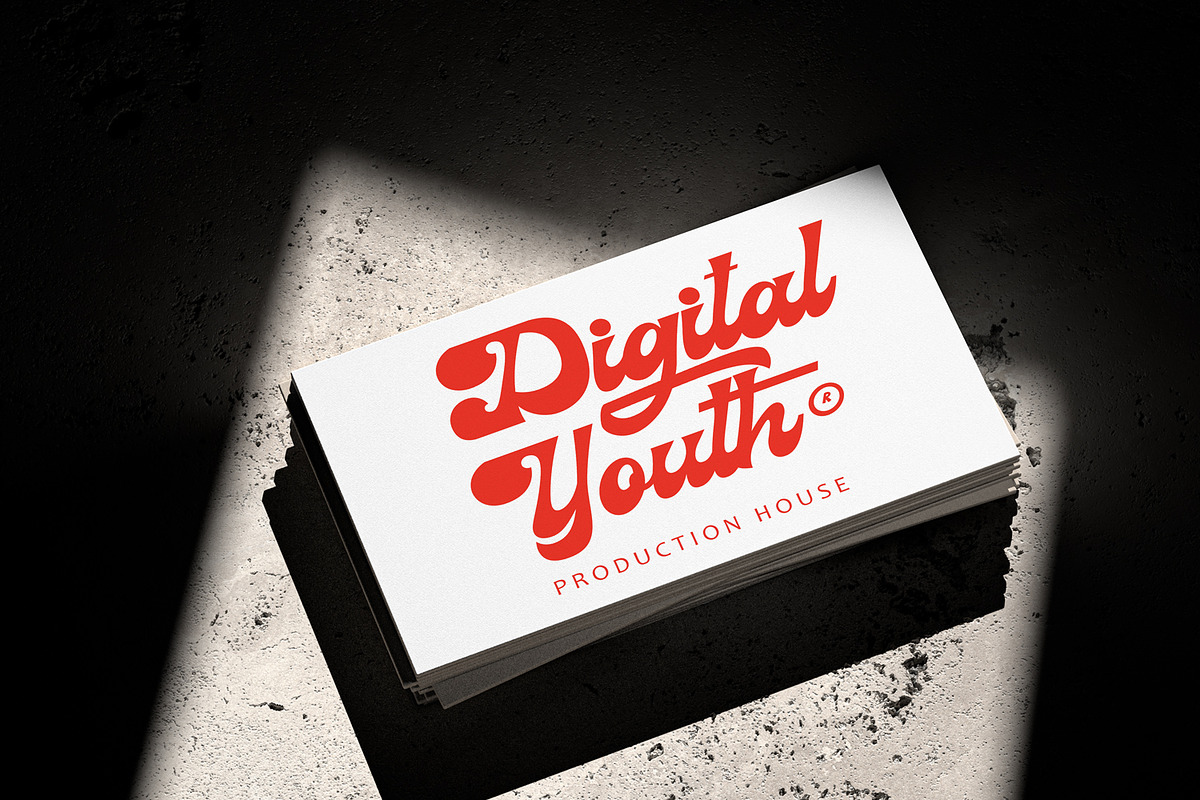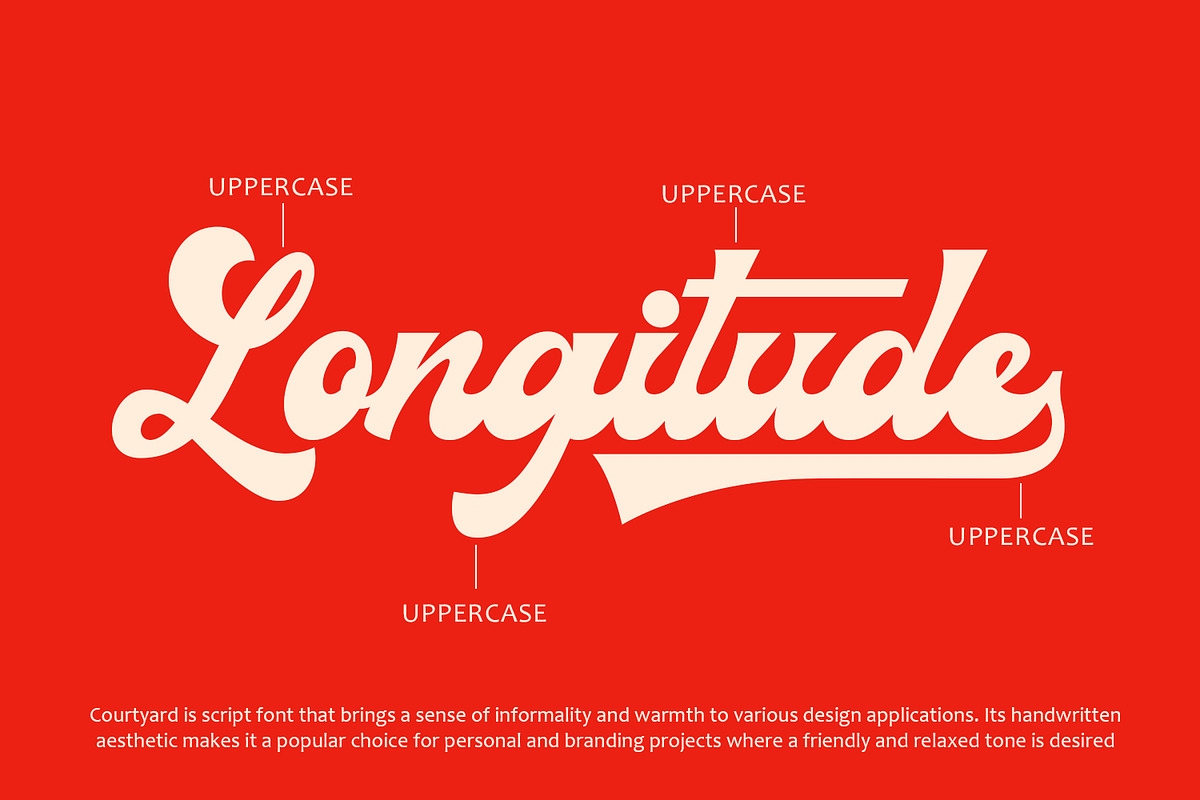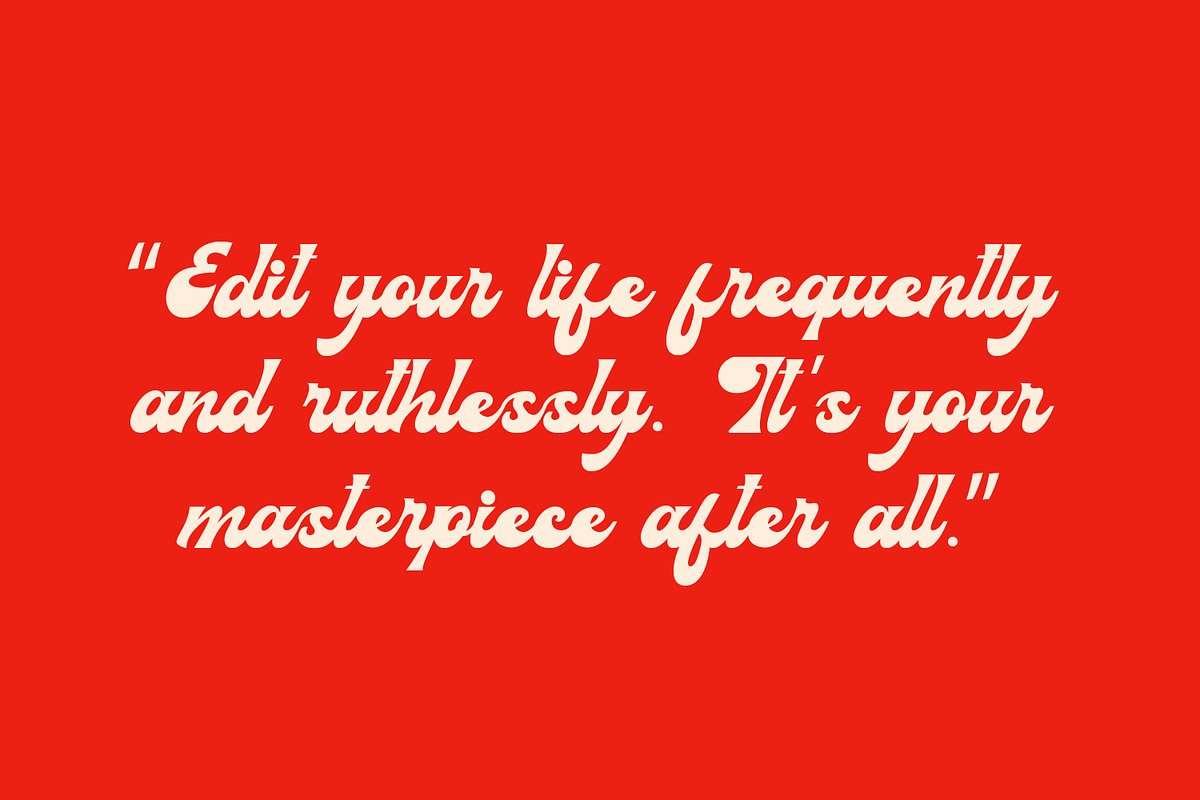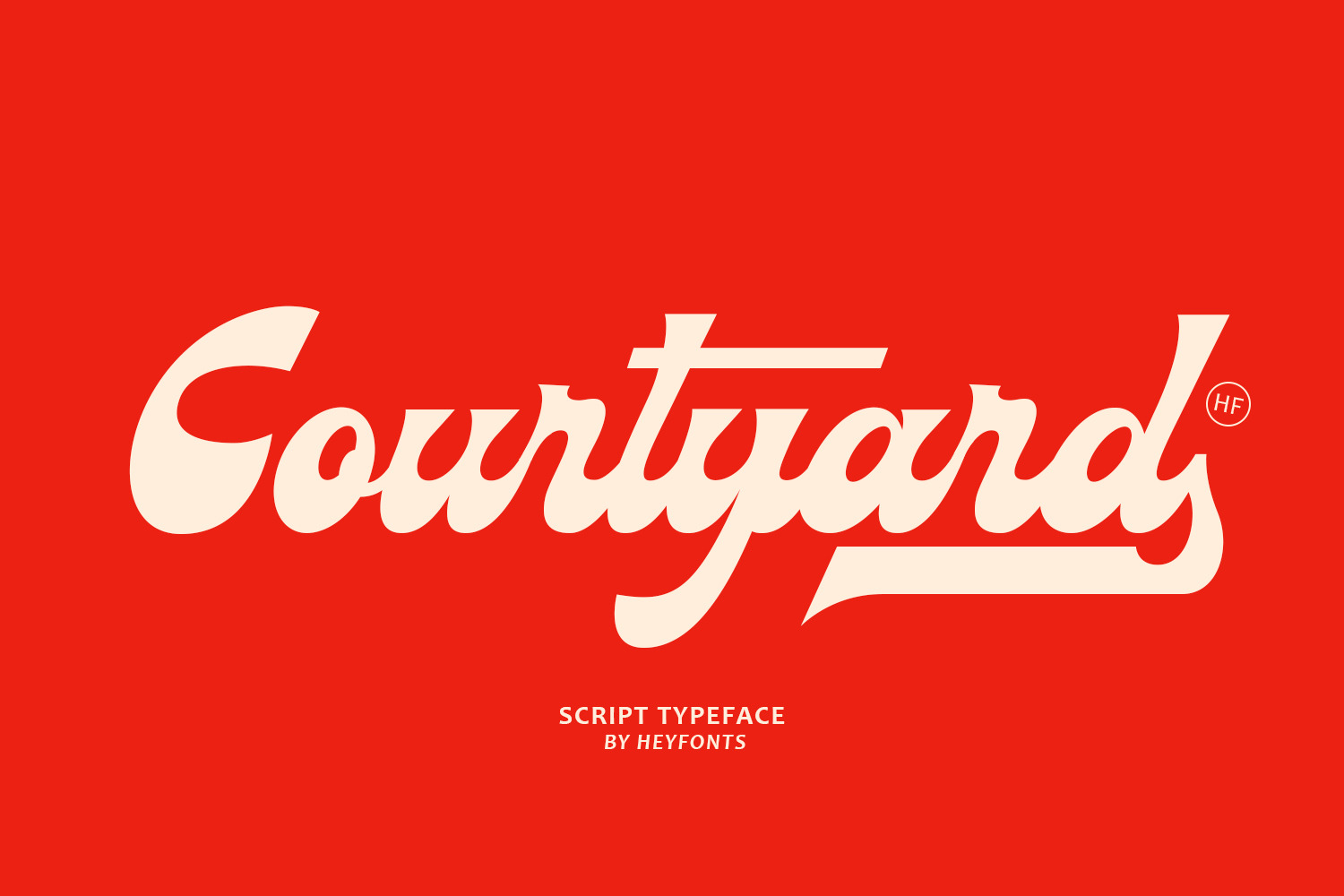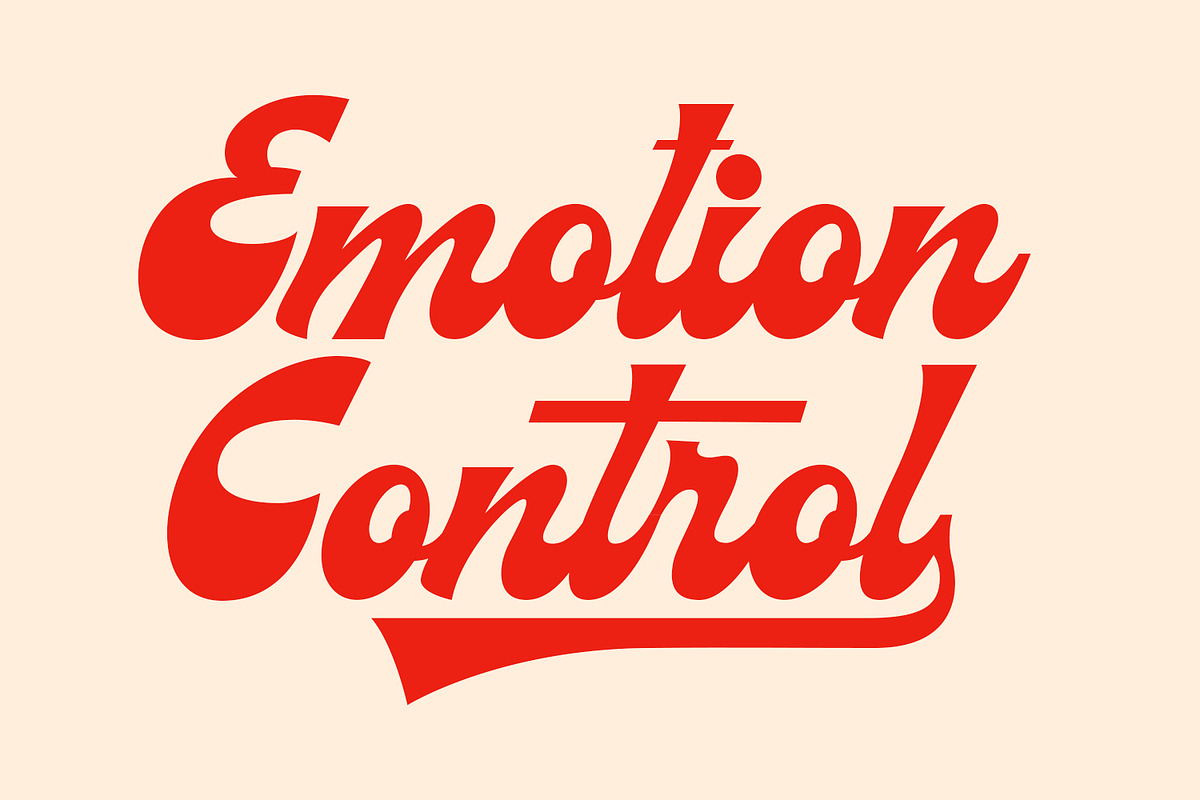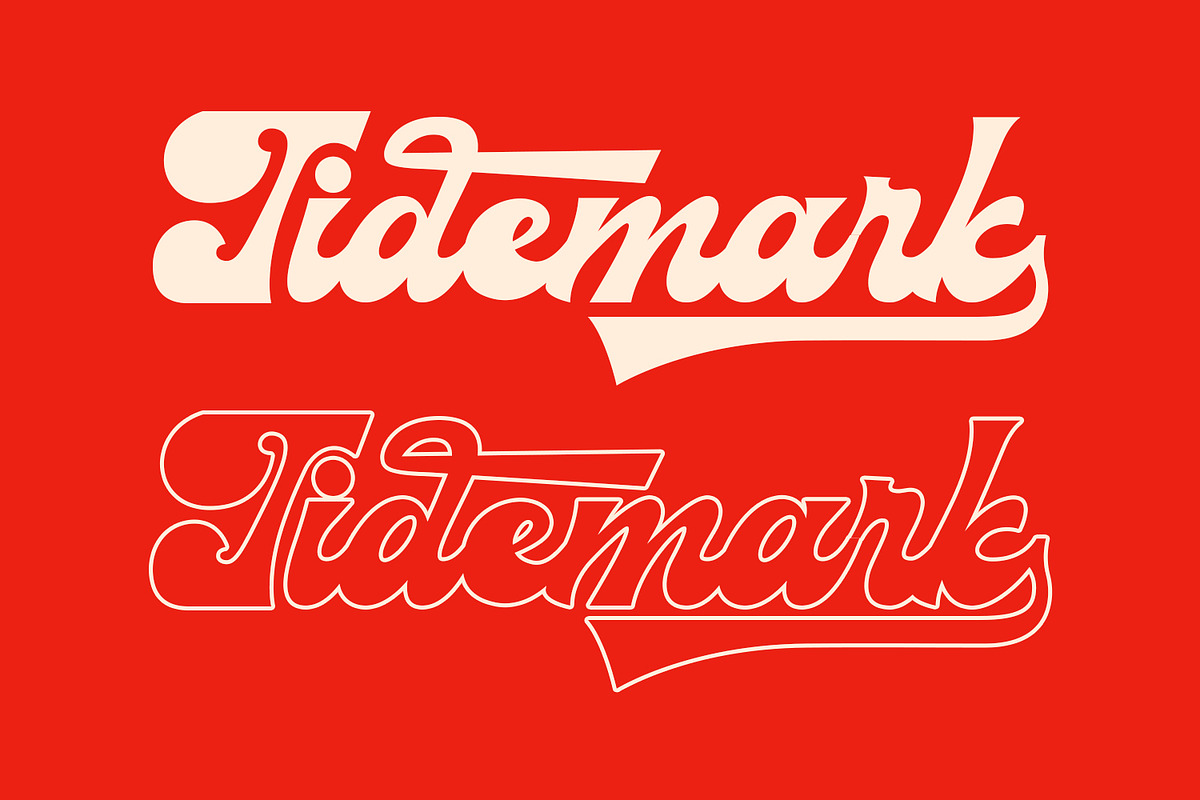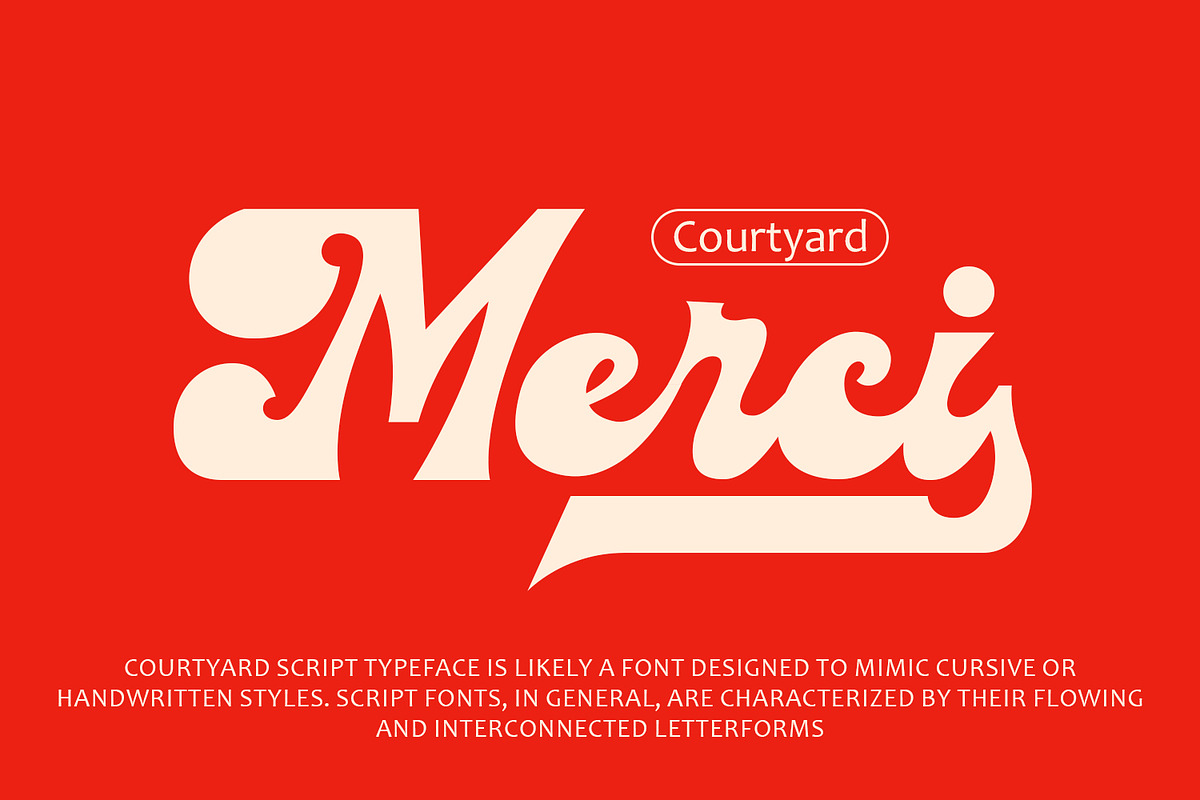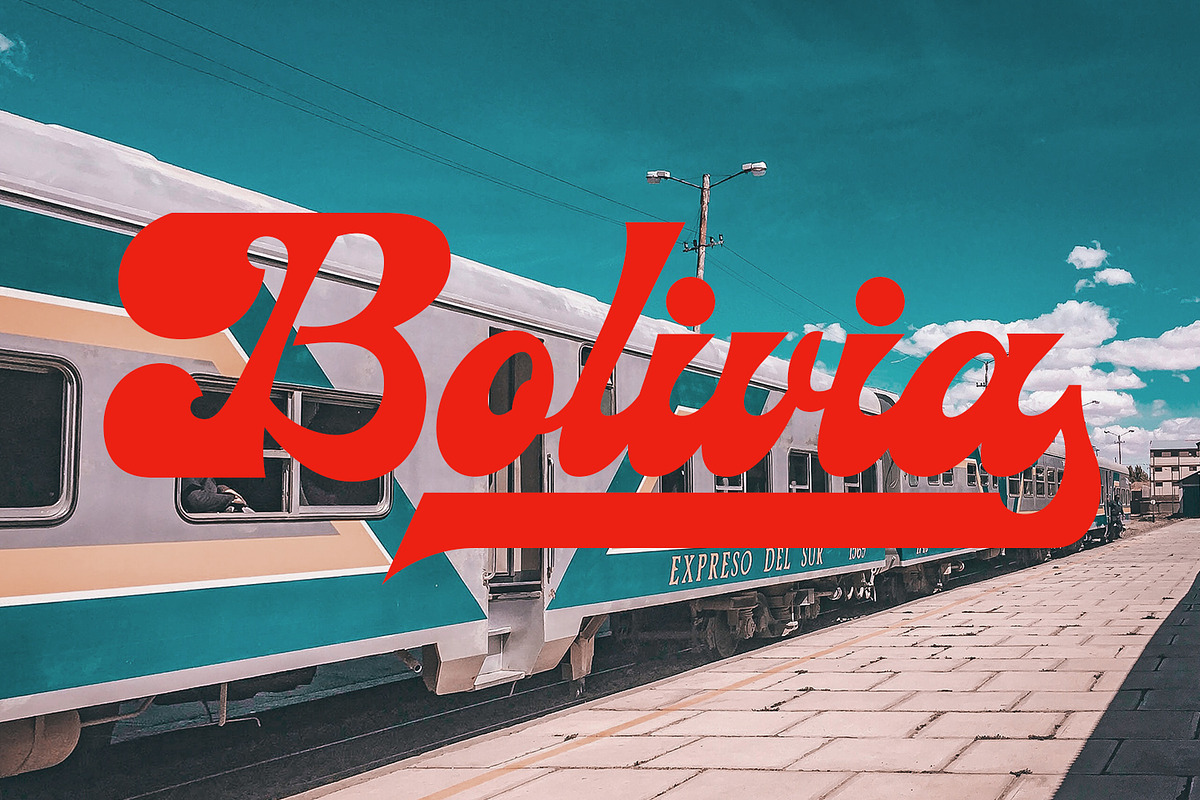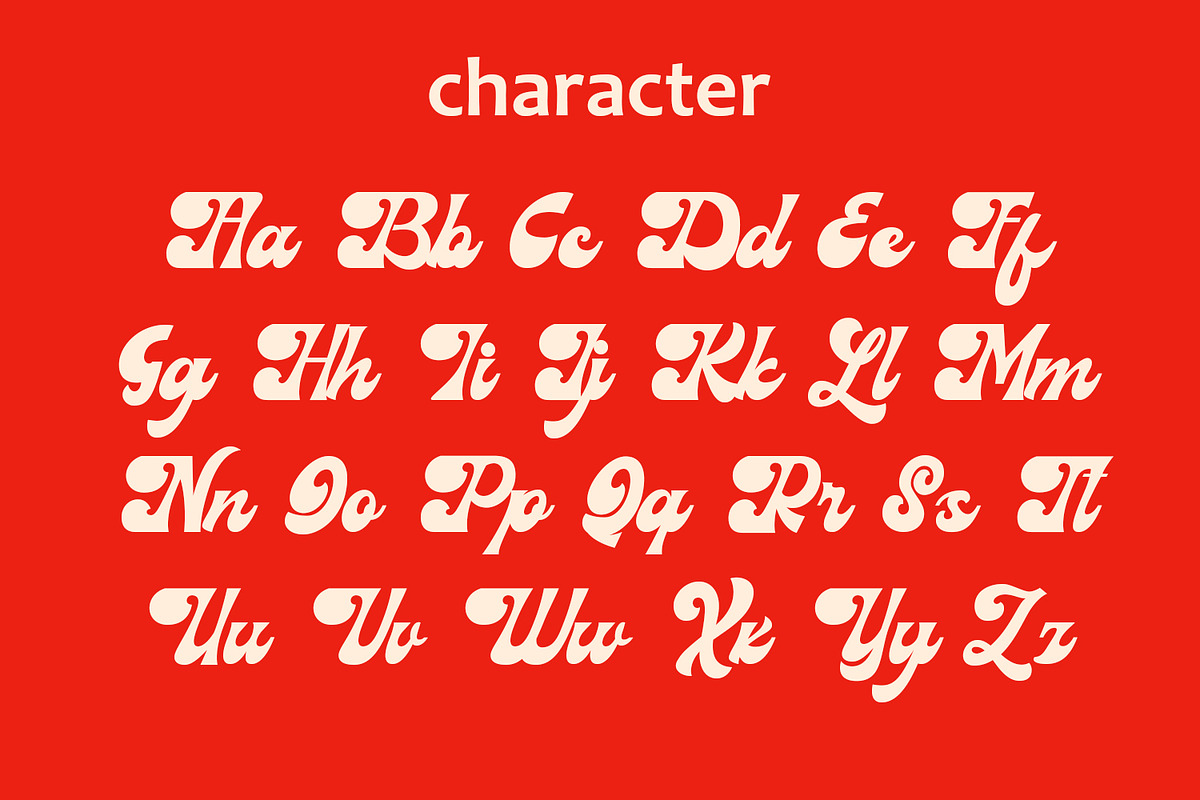
Courtyard - Script Typeface
Courtyard script typeface is likely a font designed to mimic cursive or handwritten styles. Script fonts, in general, are characterized by their flowing and interconnected letterforms, resembling natural handwriting. Here are some features and potential attributes:
-Cursive Elegance: Courtyard may exhibit an elegant and flowing cursive style, emulating the beauty of handwritten script. -Varied Stroke Widths: Like many script fonts, Courtyard might feature variations in stroke width to imitate the nuances of pen or brush strokes. -Ligatures and Swashes: Some script typefaces include ligatures (special combinations of letters) and swashes (decorative flourishes) to enhance the visual appeal and authenticity of the script. -Versatility: Courtyard may be designed with versatility in mind, suitable for a range of creative applications from branding to invitations. -Warm and Personal Tone: Script typefaces often convey a warm and personal tone, making them ideal for projects where a human touch is desired